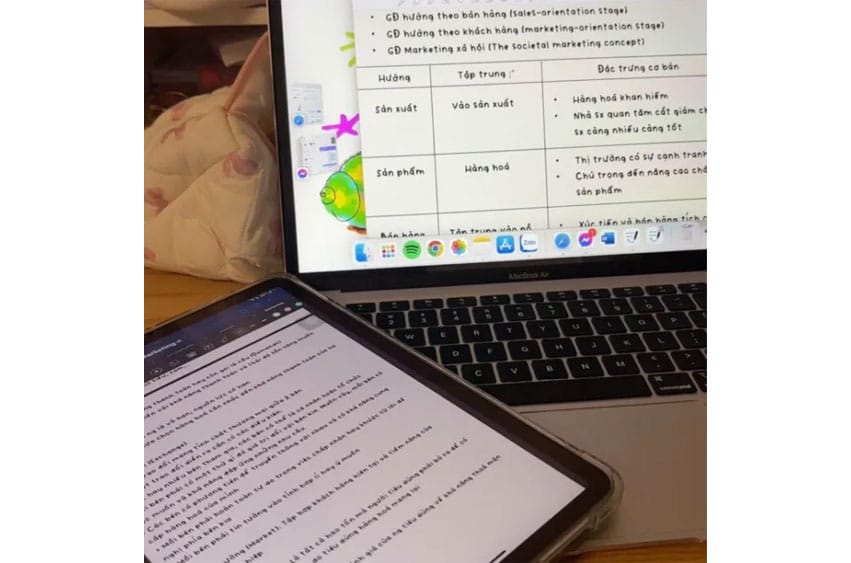
Vividly Font is made up of bold strokes, that’s why I named it vividly.
It is suitable for flyers, posters, novels, letterheads, or any design requirements you want to be awesome.